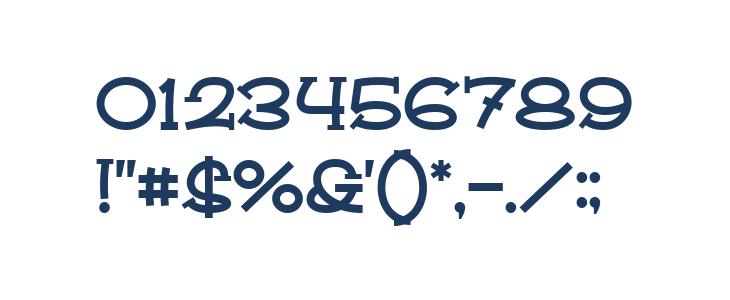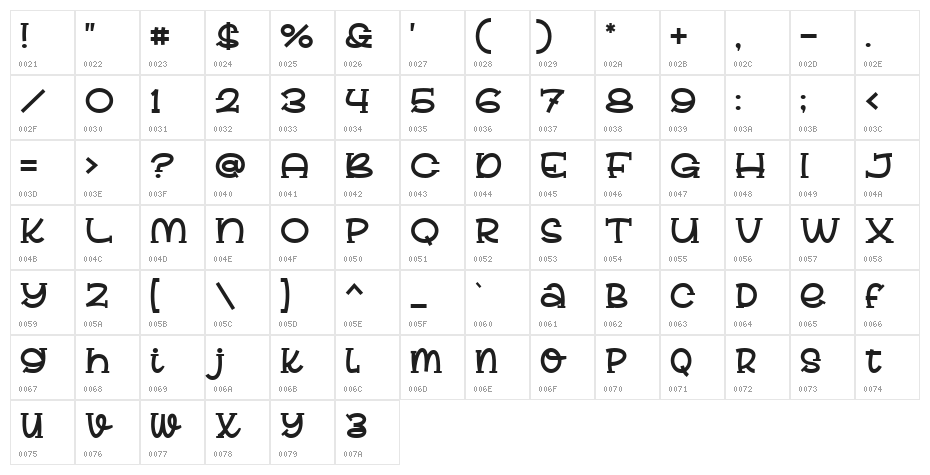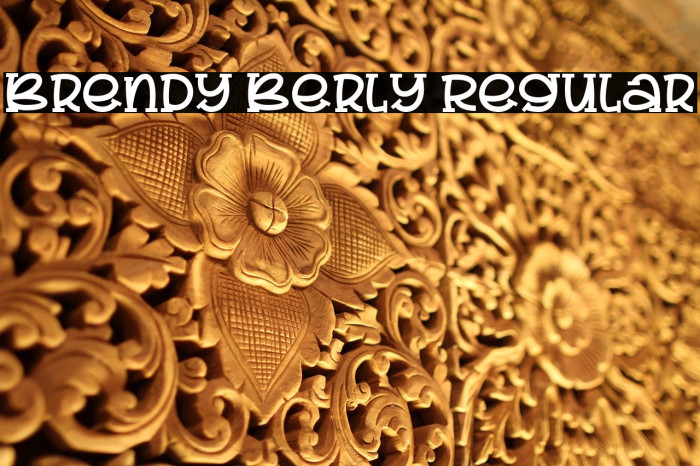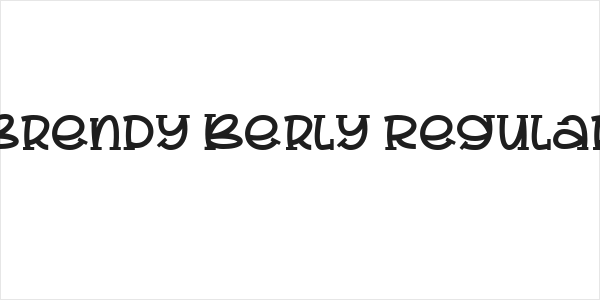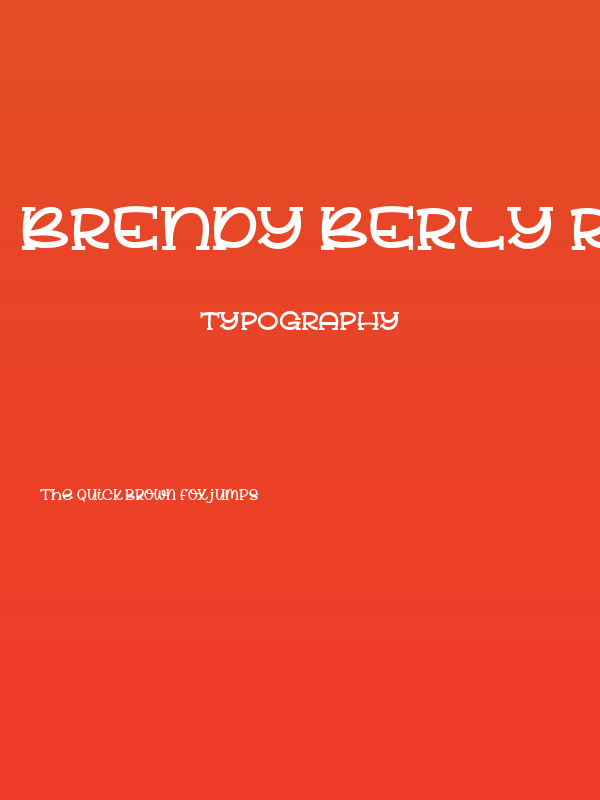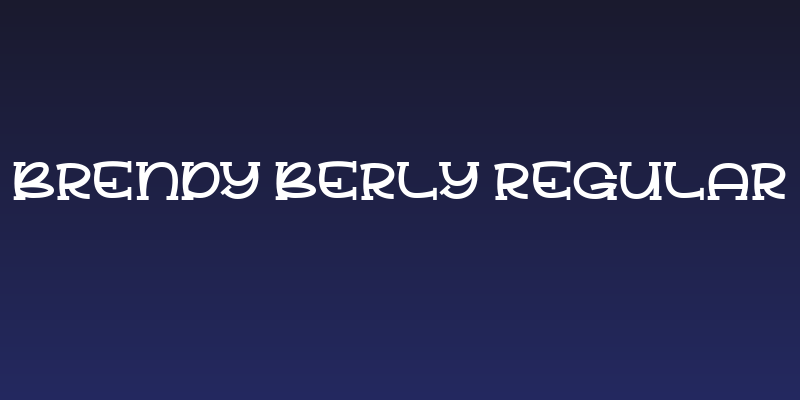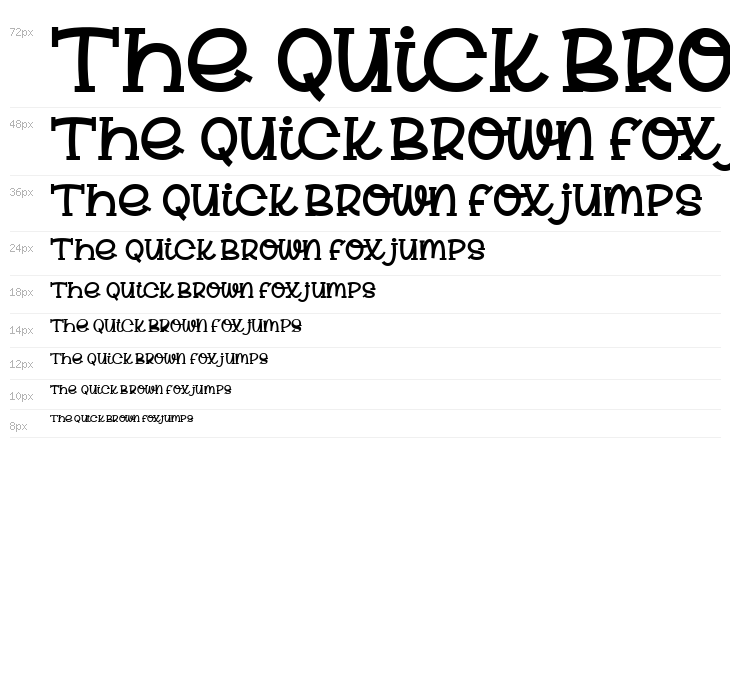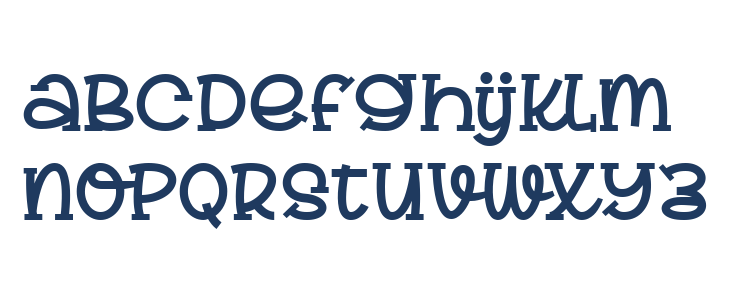
Brendy Berly Regular Font
Brendy Berly Regular Description
This font features a playful and decorative style with unique, bold characters. Each letter is crafted with a whimsical flair, incorporating curves and loops that give it a distinct personality. The uppercase and lowercase letters maintain a consistent design, with a slight variation in size and embellishment. The numbers and special characters follow the same decorative theme, making the font suitable for creative and eye-catching designs. Its bold strokes and moderate contrast make it stand out, while the character spacing is relatively normal, ensuring readability.
| Proposed Projects | Ideal for children's books, playful branding, event invitations, and creative posters. |